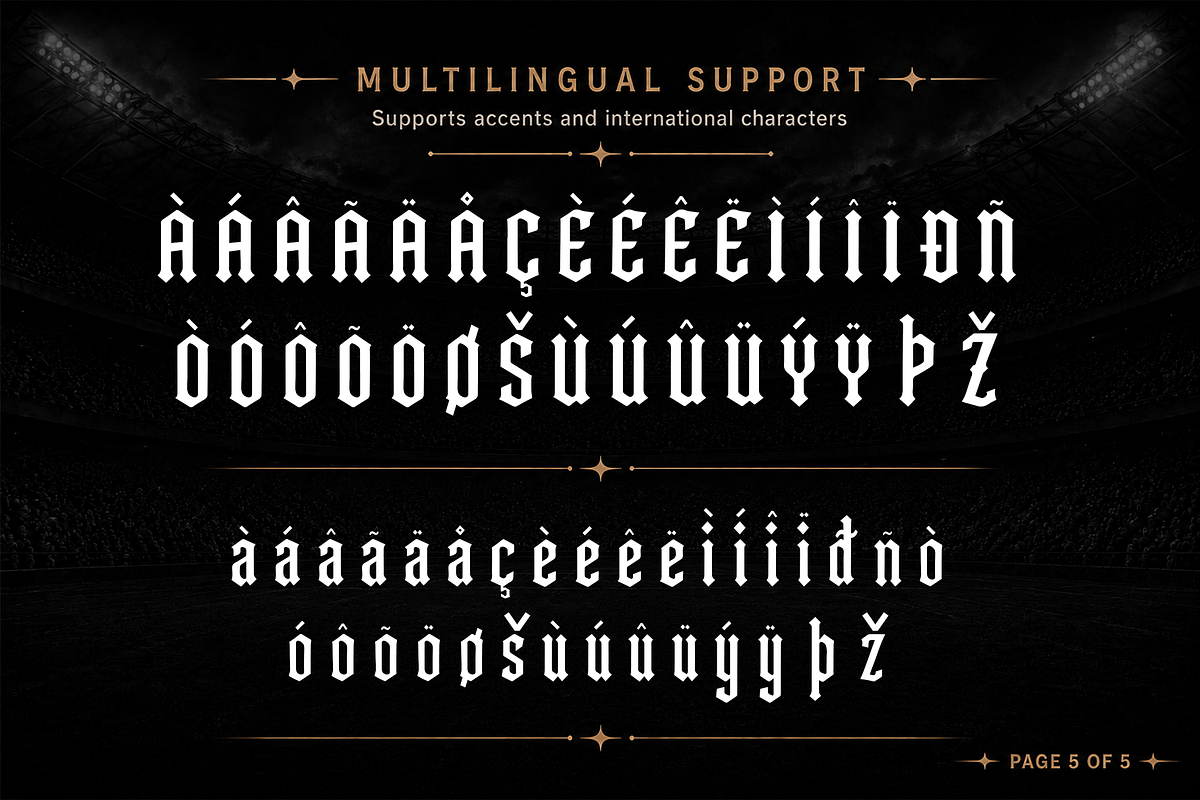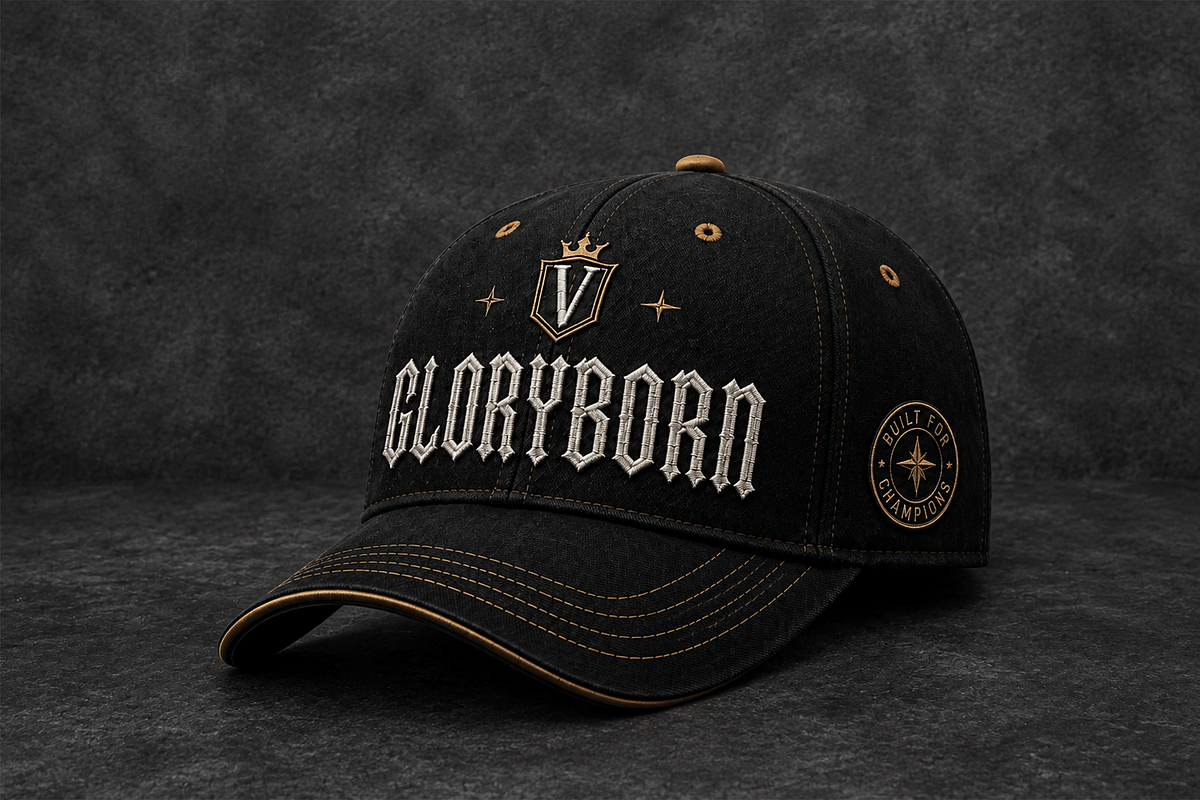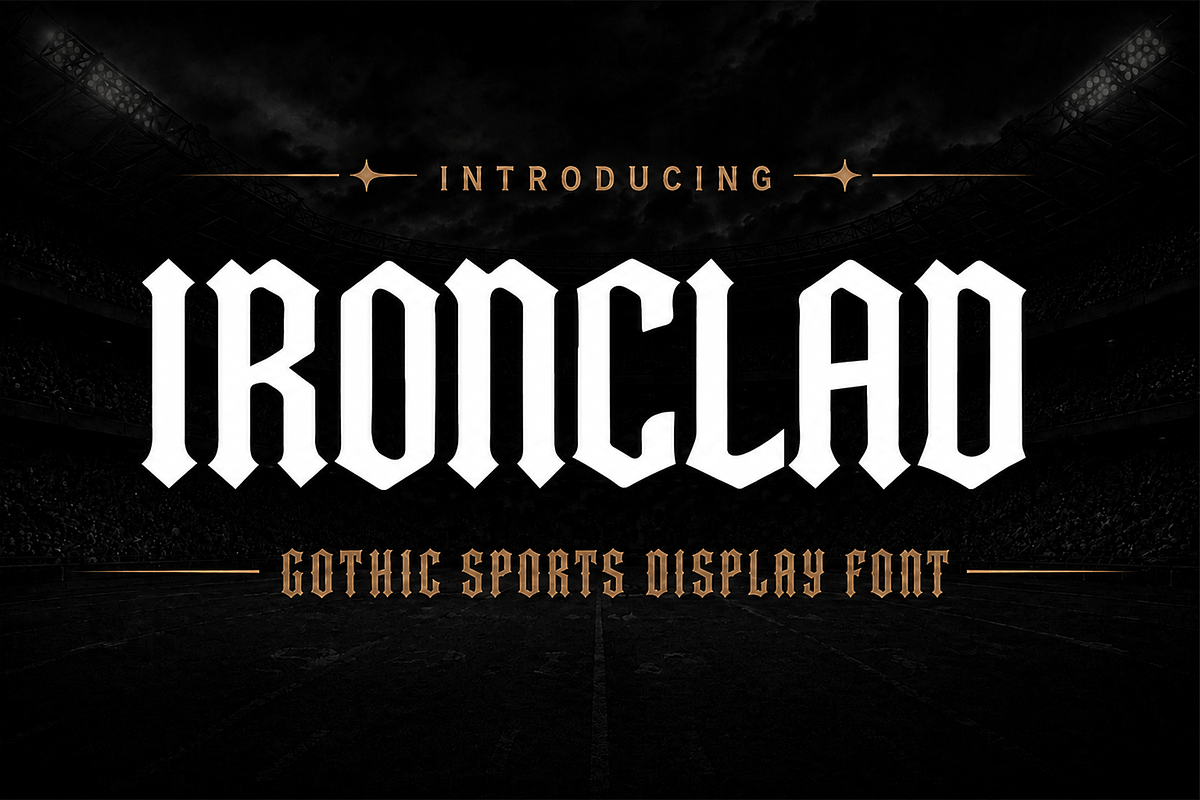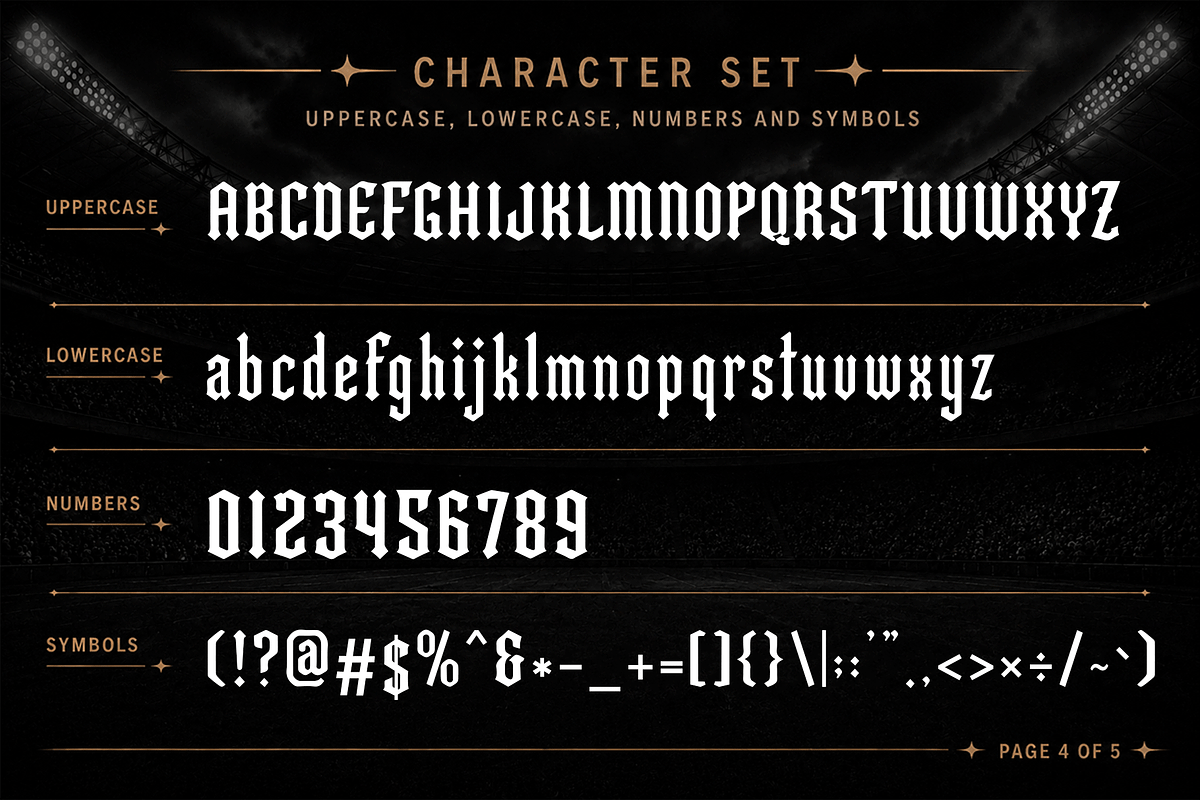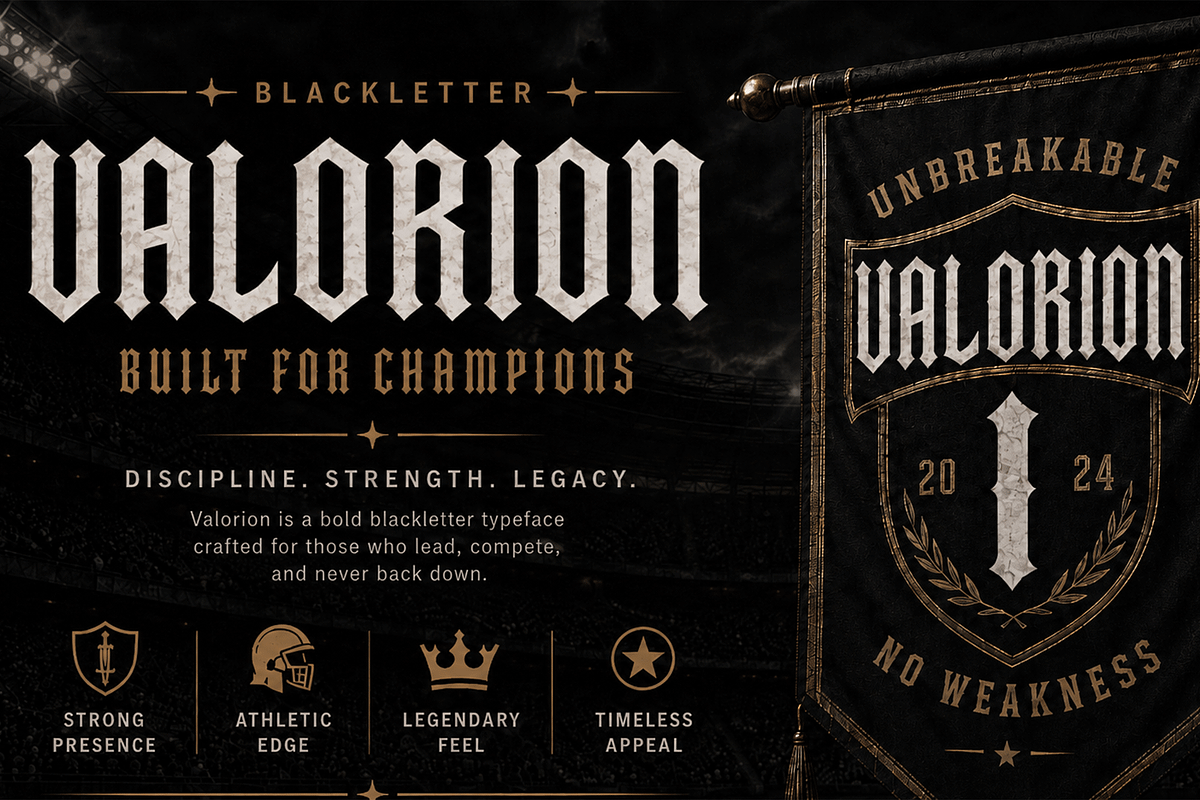
Ironclad - Gothic Sports DisplayFont
Ironclad - Gothic Sports Display Font
Meet "Ironclad," a bold gothic sports display font created to deliver strength, authority, and a powerful competitive presence. Featuring tall condensed letterforms, sharp angular details, and a classic blackletter-inspired structure, Ironclad brings an unmistakable sense of toughness and tradition to every design.
Ironclad is perfect for sports branding, football and basketball graphics, esports identities, gym apparel, varsity merchandise, team jerseys, tournament posters, streetwear, motorcycle graphics, album covers, event promotions, and bold masculine branding. Its strong silhouette helps typography remain memorable even in high-energy visual compositions.